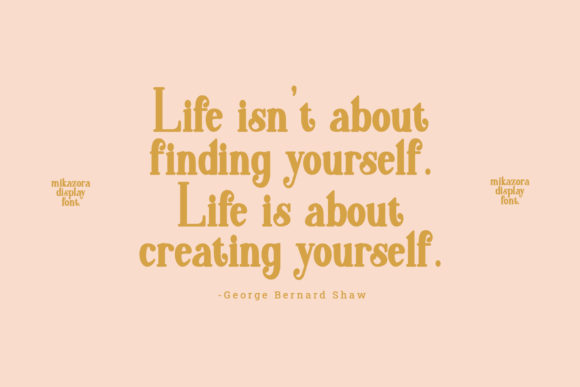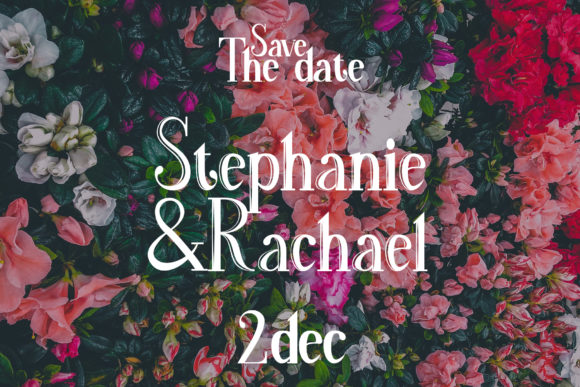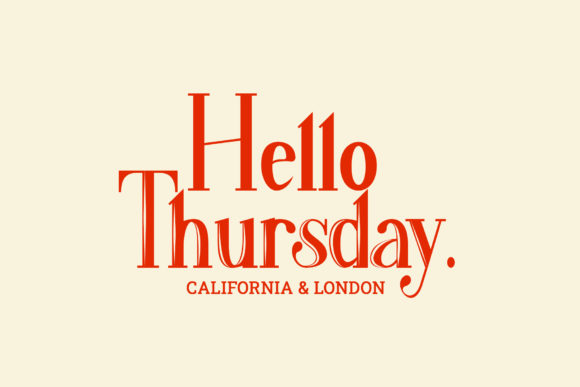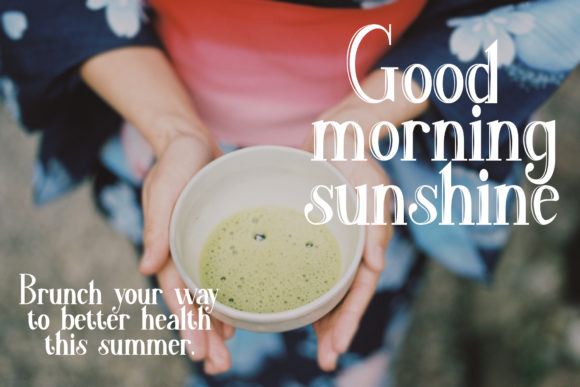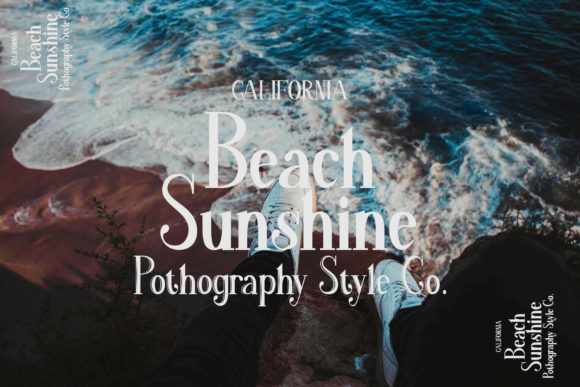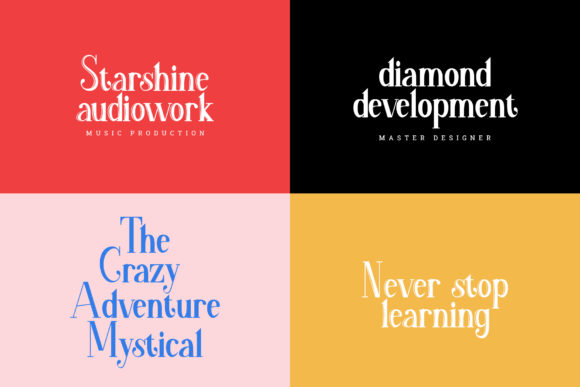
Introduction to Mikazora Font
As designers, we’ve all been there – staring at a blank canvas, trying to bring our creative vision to life. The perfect font can make all the difference, elevating our designs from ordinary to extraordinary. That’s where the Mikazora Font comes in – a simple yet elegant serif font that’s sure to make your next design project shine.
With its clean and beautiful arrangement of letters, Mikazora Font is a versatile design resource that can be used in both formal and non-formal designs. Whether you’re working on a high-quality brochure or a creative project with a transparent background, this font is sure to impress. The best part? It’s available for free download, making it an accessible and valuable resource for designers of all levels.
Key Features of Mikazora Font
- Unique characteristics include a mix of modern and elegant styles
- Comes in a single weight with a range of language support
- Perfect for use in logos, branding, and other design elements
Honest Review: Mikazora Font
I recently had the chance to try out the Mikazora Font, and I must say it’s a lovely addition to any design resource collection. This free download has been a game-changer for my creative projects.
- ✨ Beautiful, high-quality design that adds a touch of elegance to any project
- ✨ The transparent background makes it super easy to use in various design scenarios
- ✨ The font is highly customizable, allowing me to experiment with different styles and combinations
- ⚠️ The font might be a bit too delicate for certain designs, requiring some extra effort to make it stand out
- ⚠️ Some users might find the font a bit too ornate, which could be overwhelming in certain contexts
Overall, I’m really impressed with the Mikazora Font. It’s a high-quality design resource that can elevate any creative project. While it may have some limitations, I believe it’s well worth the free download – just be sure to use it thoughtfully and in context.
How to Use Mikazora Font
Tips for Getting the Most Out of the Mikazora Font
Experiment with different font sizes, colors, and combinations to achieve the desired design effect. Use the Mikazora Font in conjunction with other design resources to create a cohesive and visually appealing design.
Common Use Cases for the Mikazora Font
The Mikazora Font is ideal for various creative projects, including branding, marketing materials, and digital designs. Its high-quality design elements and transparent background make it a versatile design resource for professionals and hobbyists alike.
Q: Can I use the Mikazora Font on a design with a transparent background?
Yes, the Mikazora Font is designed to work well on designs with transparent backgrounds. The font’s high-quality design ensures that it will display clearly and crisply even when placed over a transparent background, making it an ideal choice for creative projects that require a touch of elegance and sophistication.